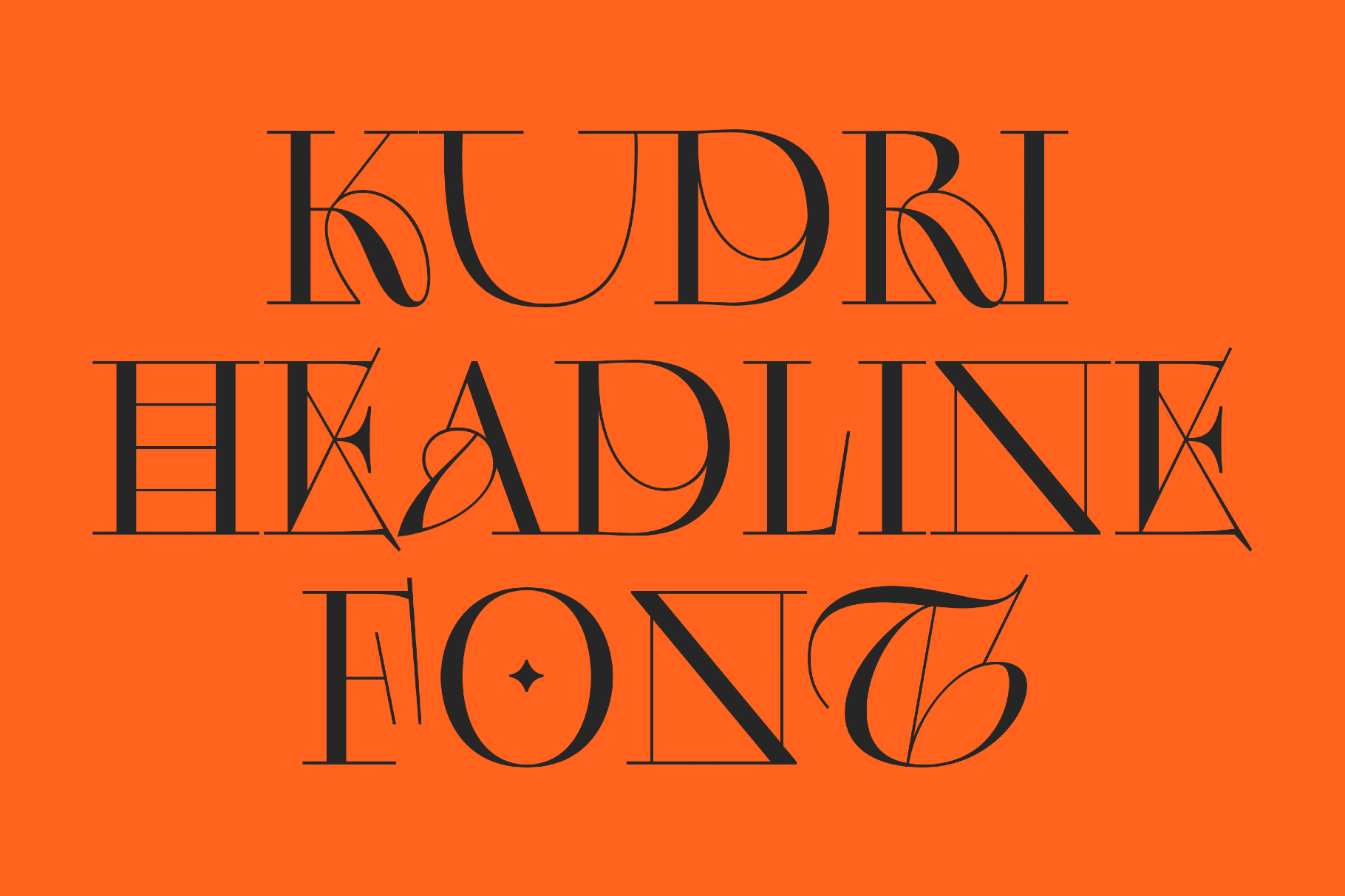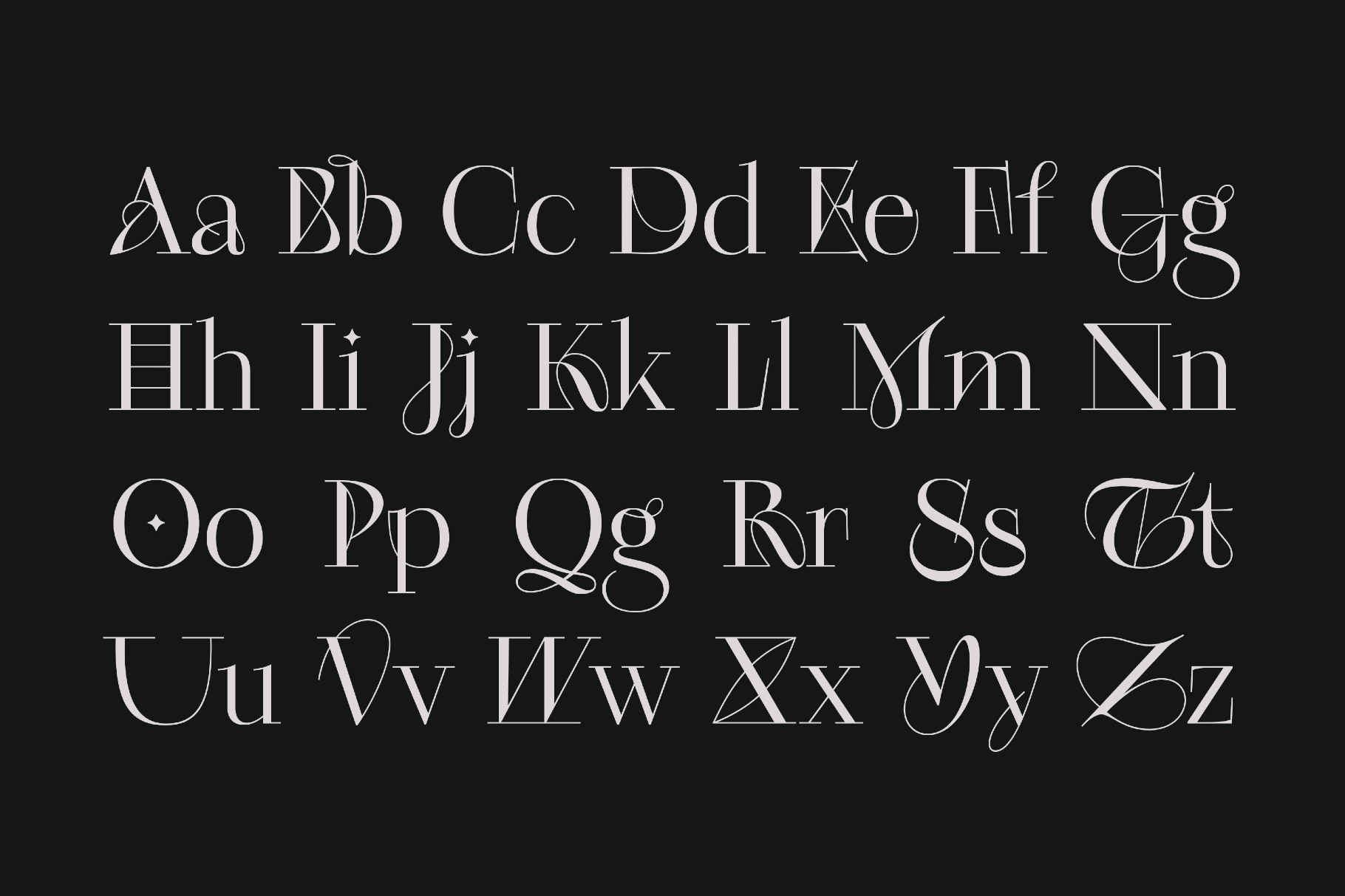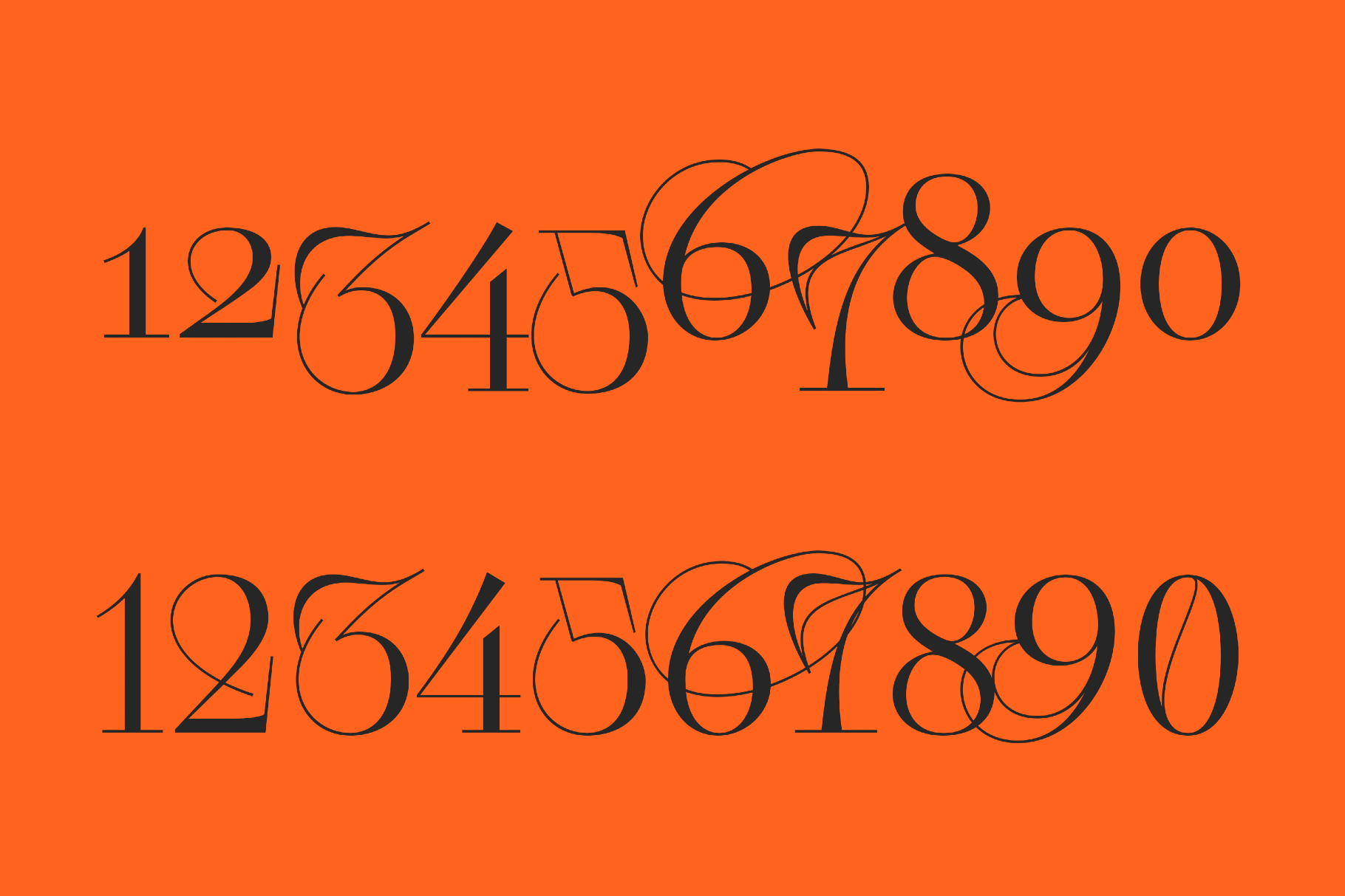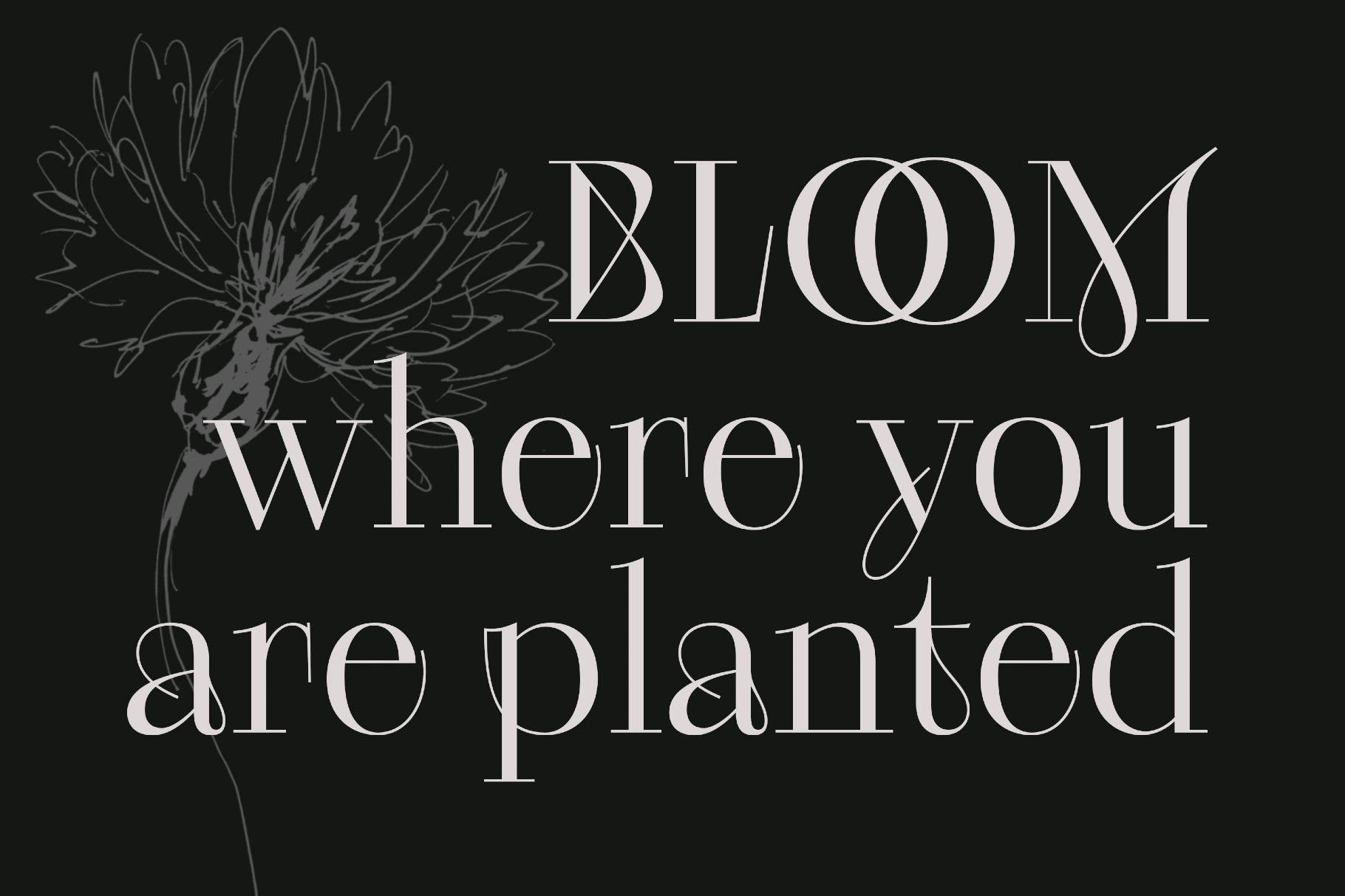
Kudri Weird Headline Font
Kudri Weird Headline is a high-contrast wedding font with wiry hairlines, eccentric curls, and jewel-like terminals that recall fin-de-siècle Art Nouveau bookplates and Silver Age poster lettering. Hand-drawn curves with offbeat ligatures excel on book and magazine covers, cultural exhibition identities, quirky branding, theatre posters, luxury beauty packaging, logo wordmarks, and cinematic title cards, where large sizes show off their odd details.
- Numbers, punctuation, dingbats, and symbols.
- Multilingual support across extended Latin and Cyrillic scripts.
- Ligatures.